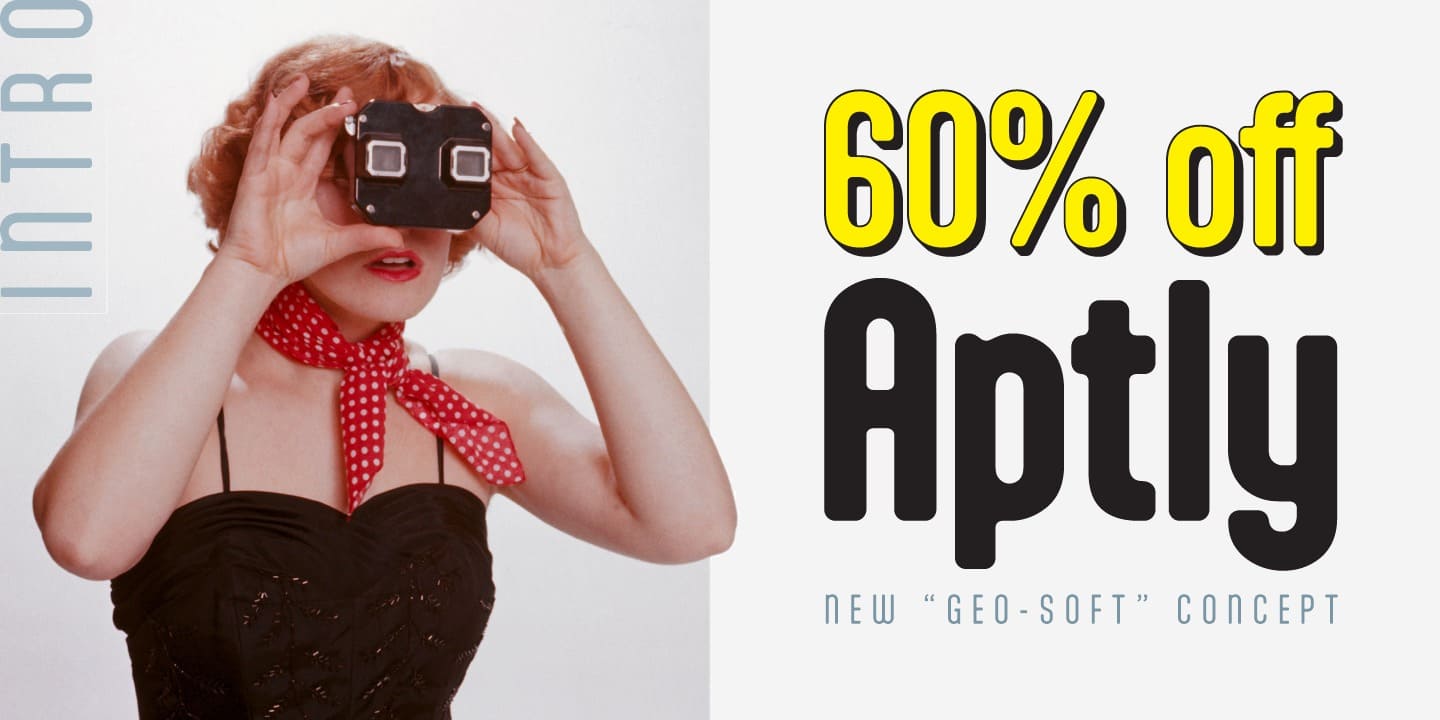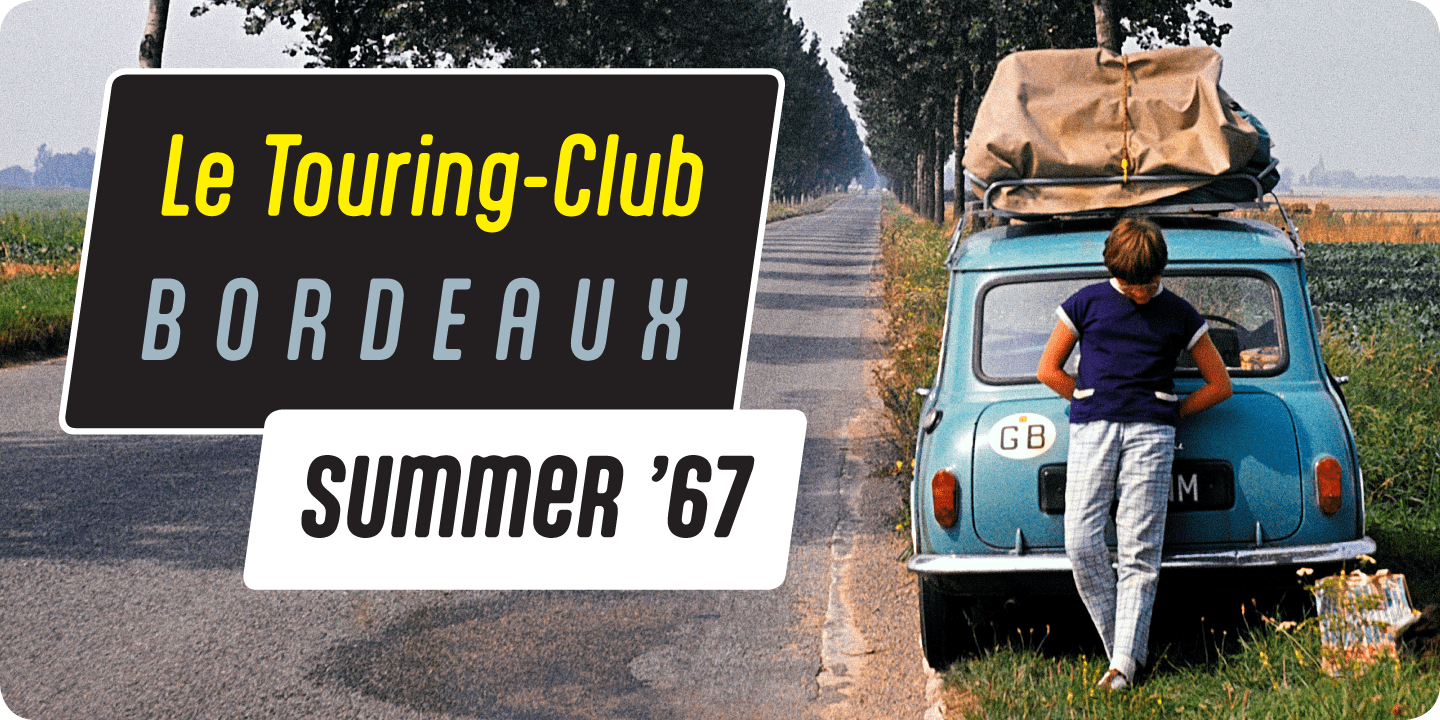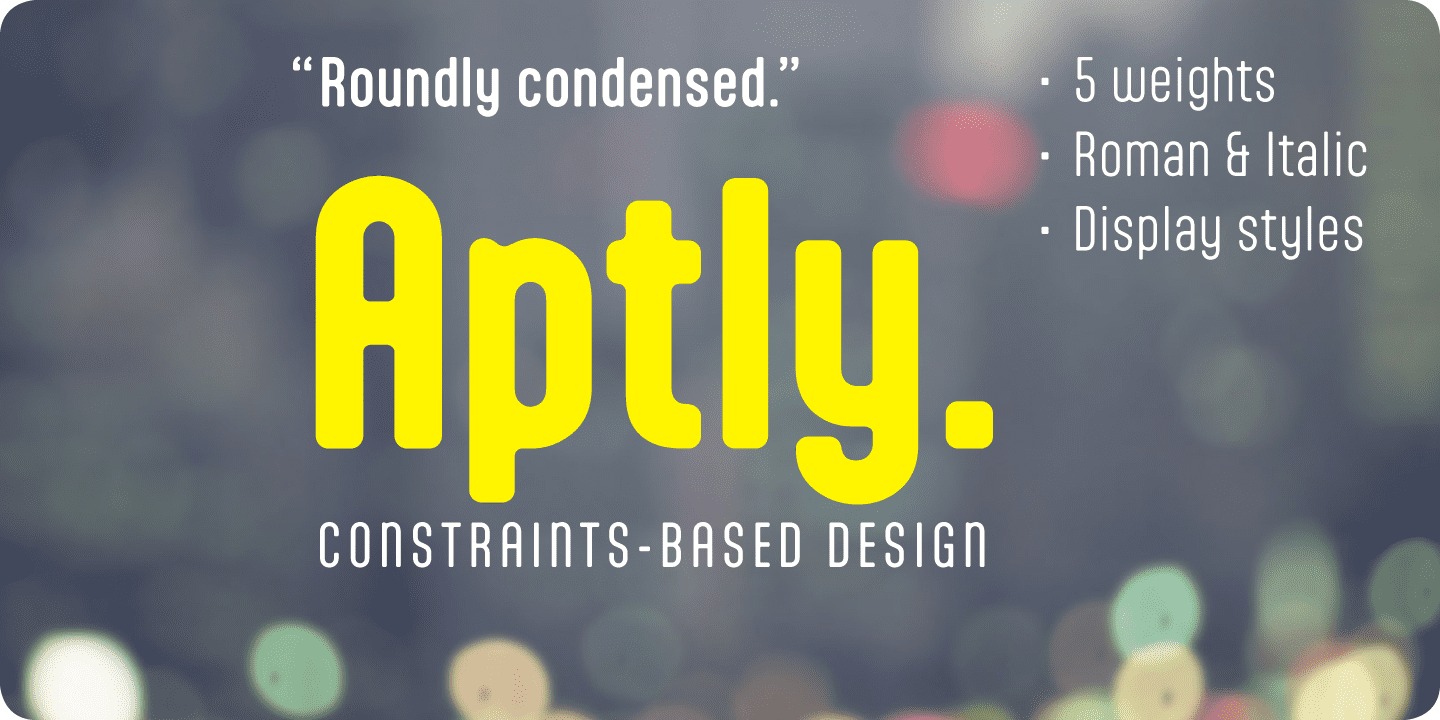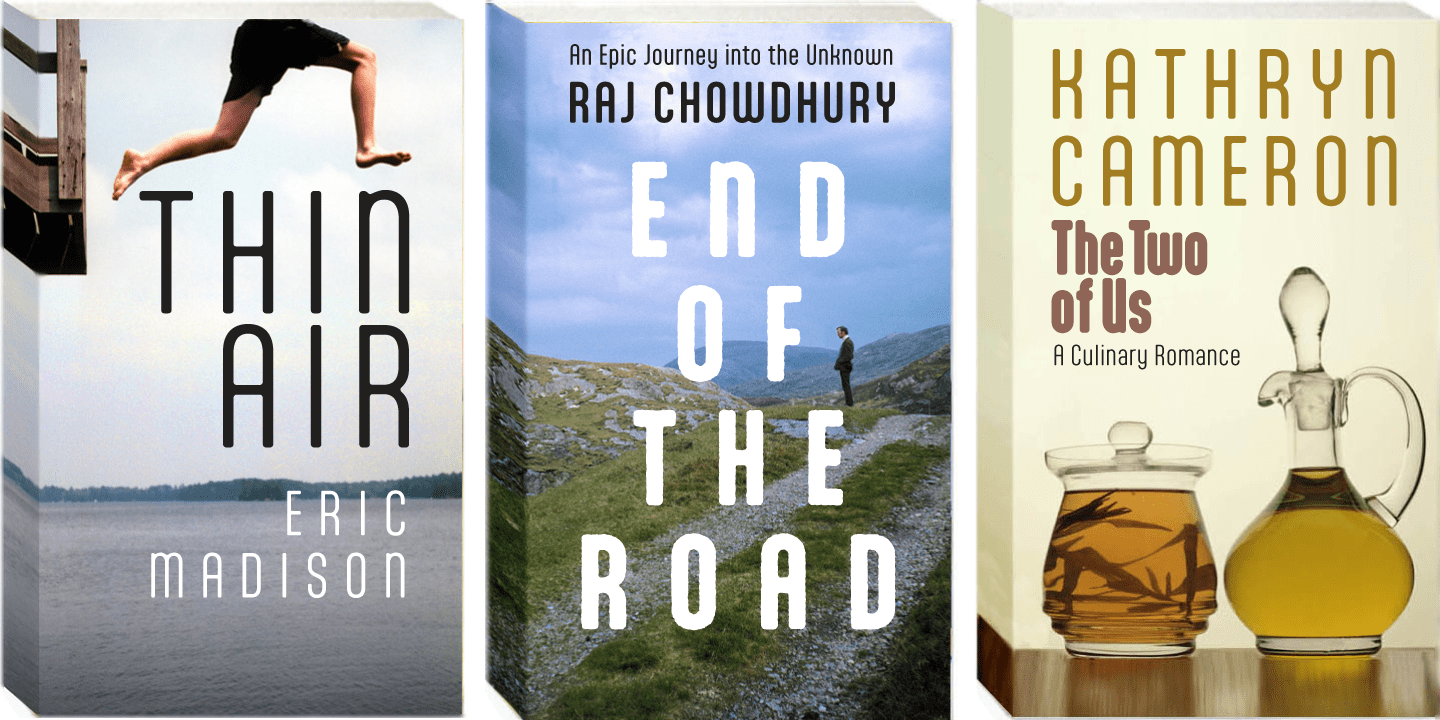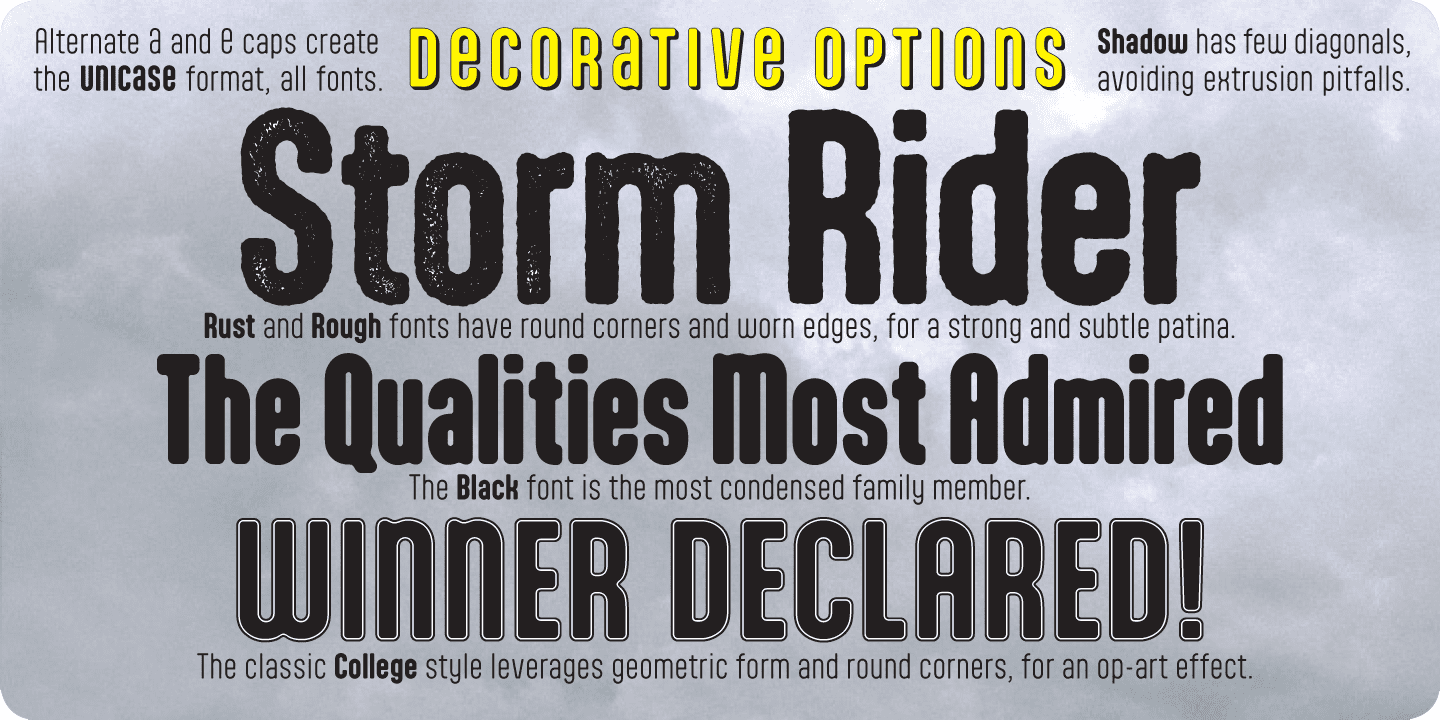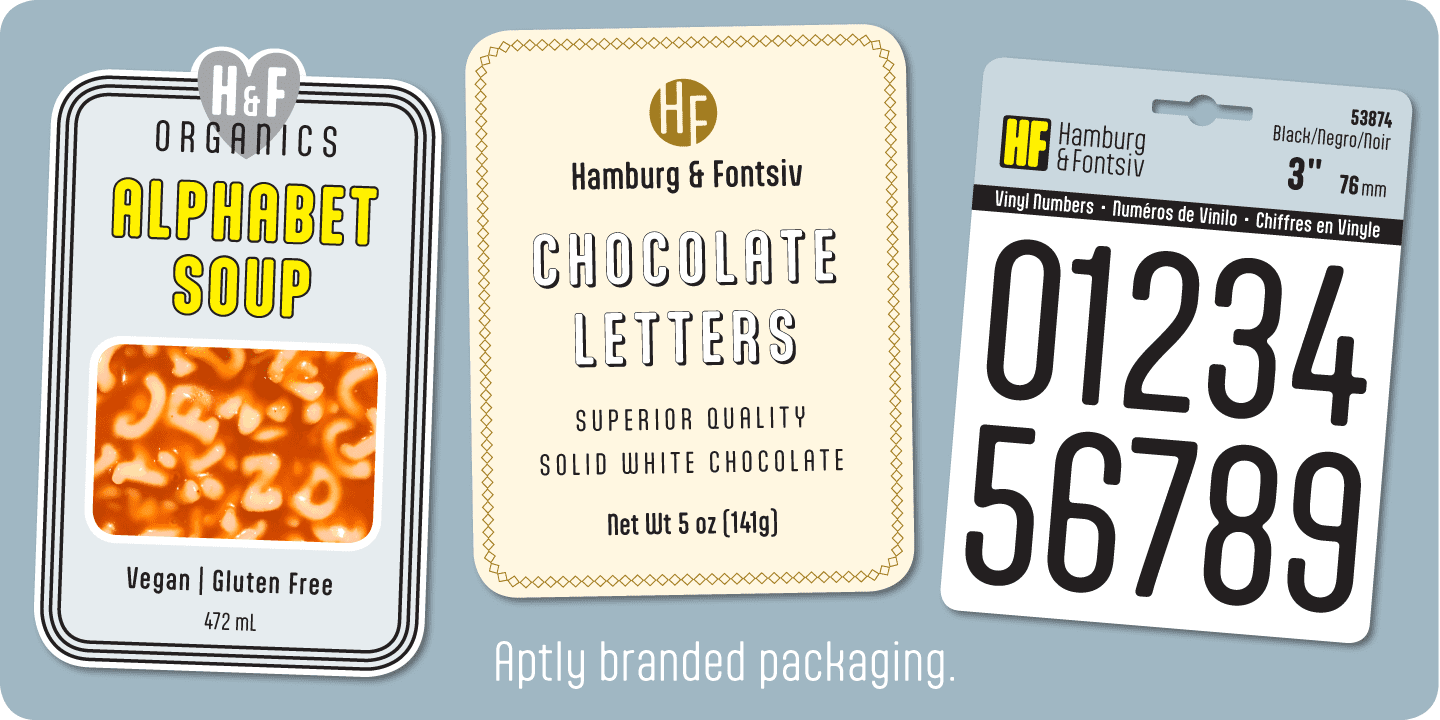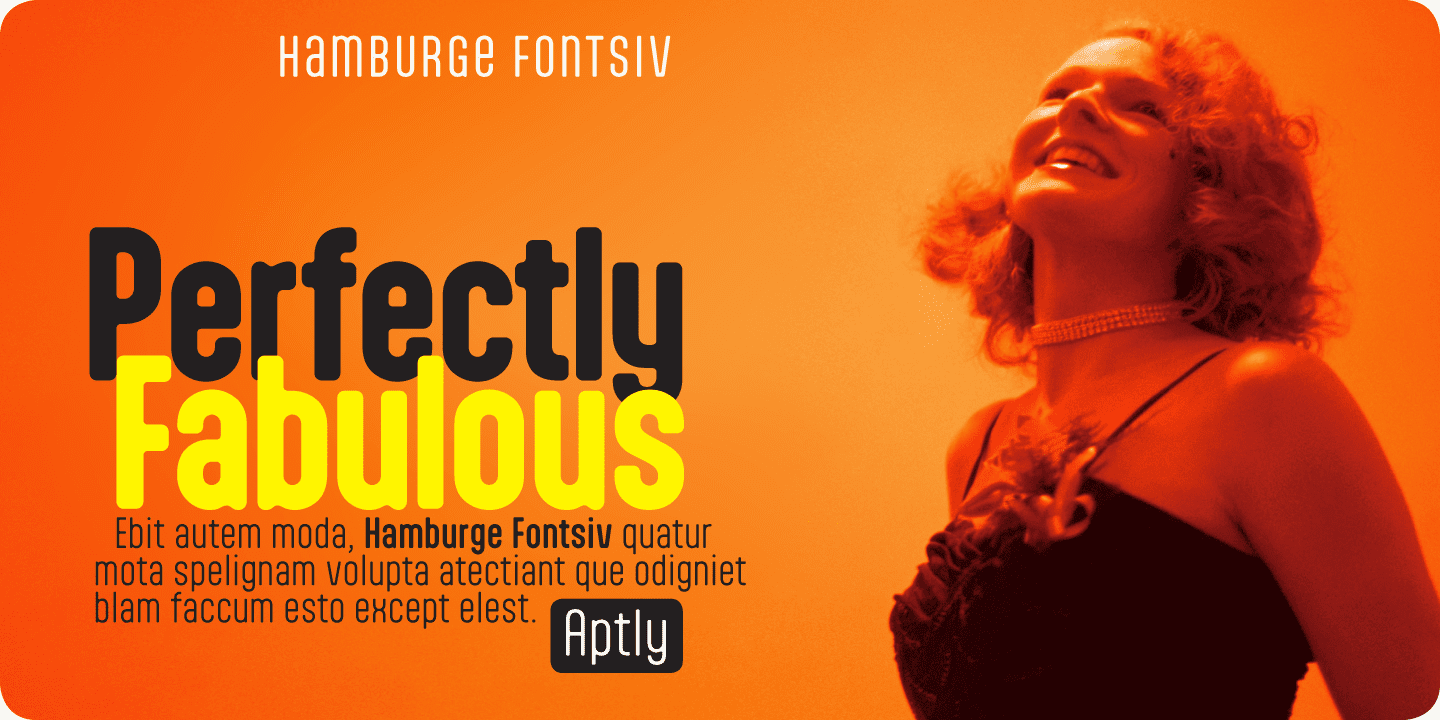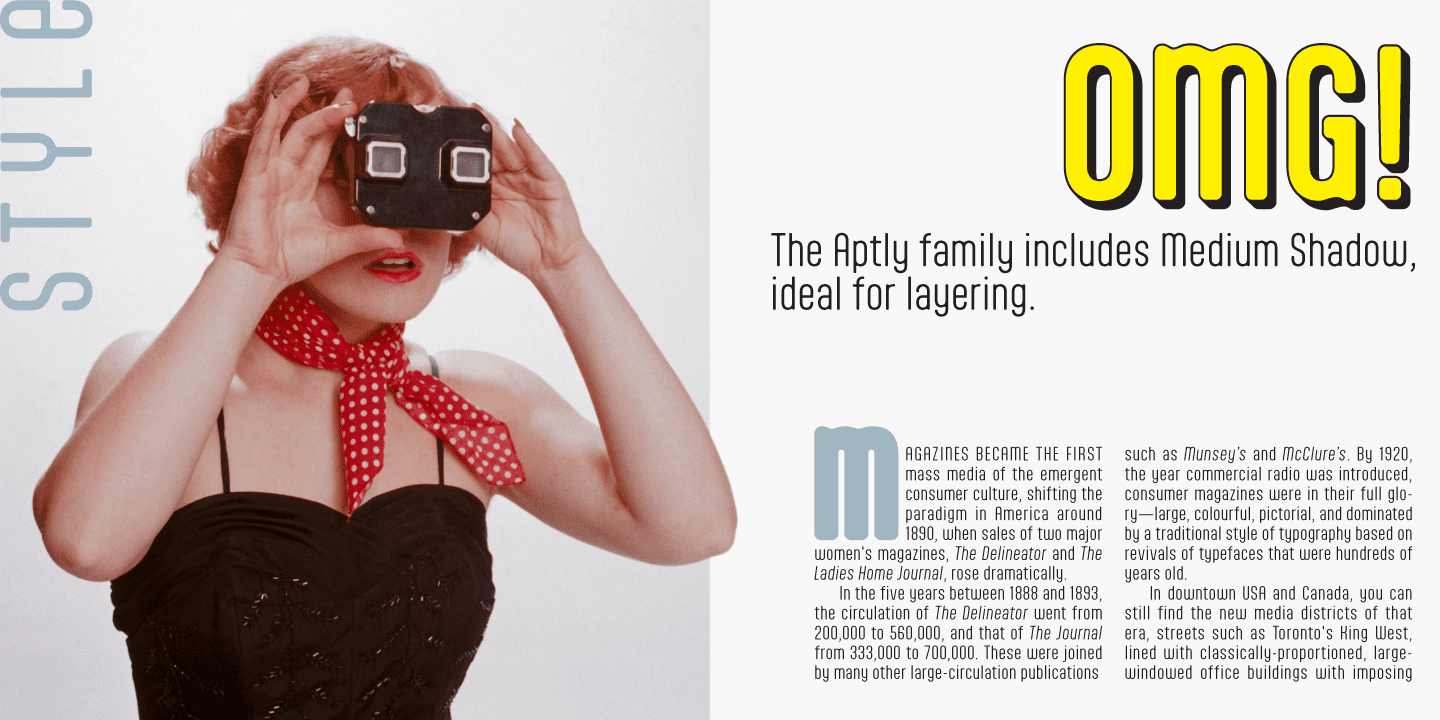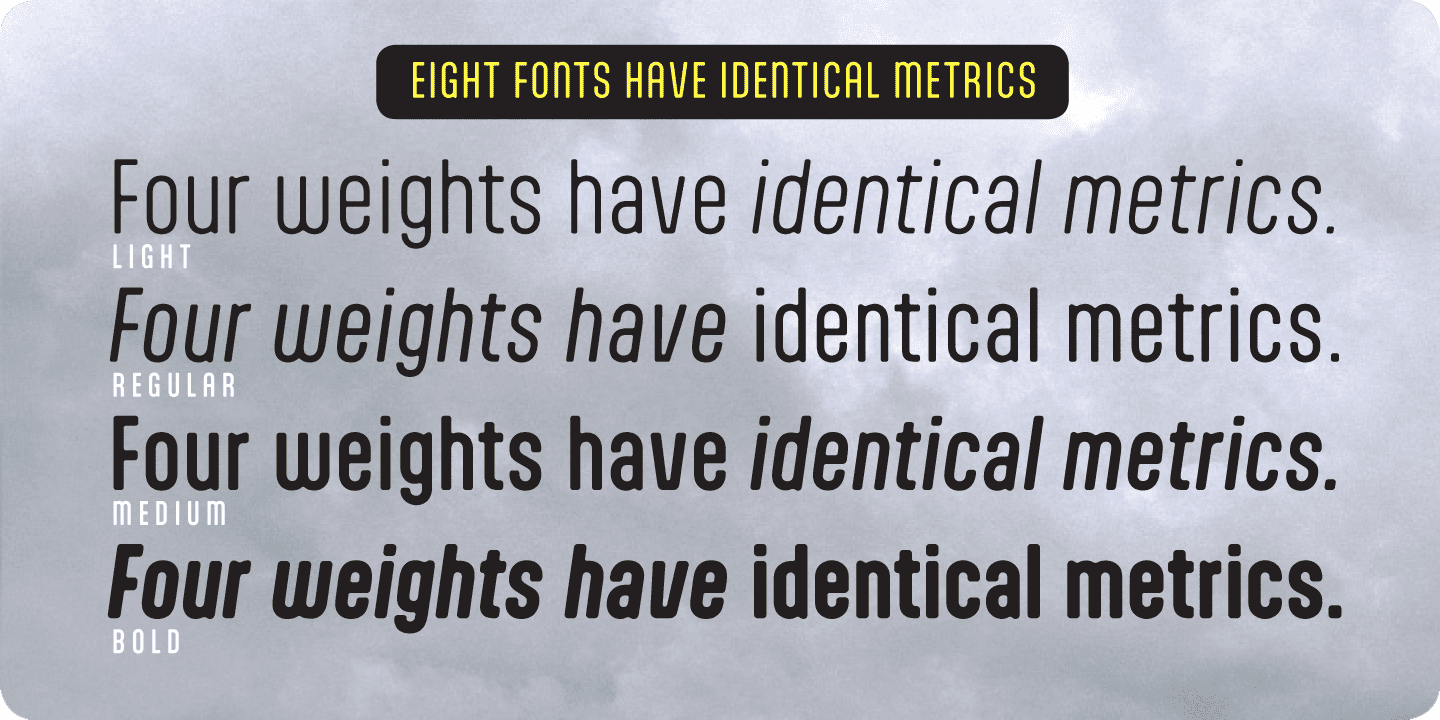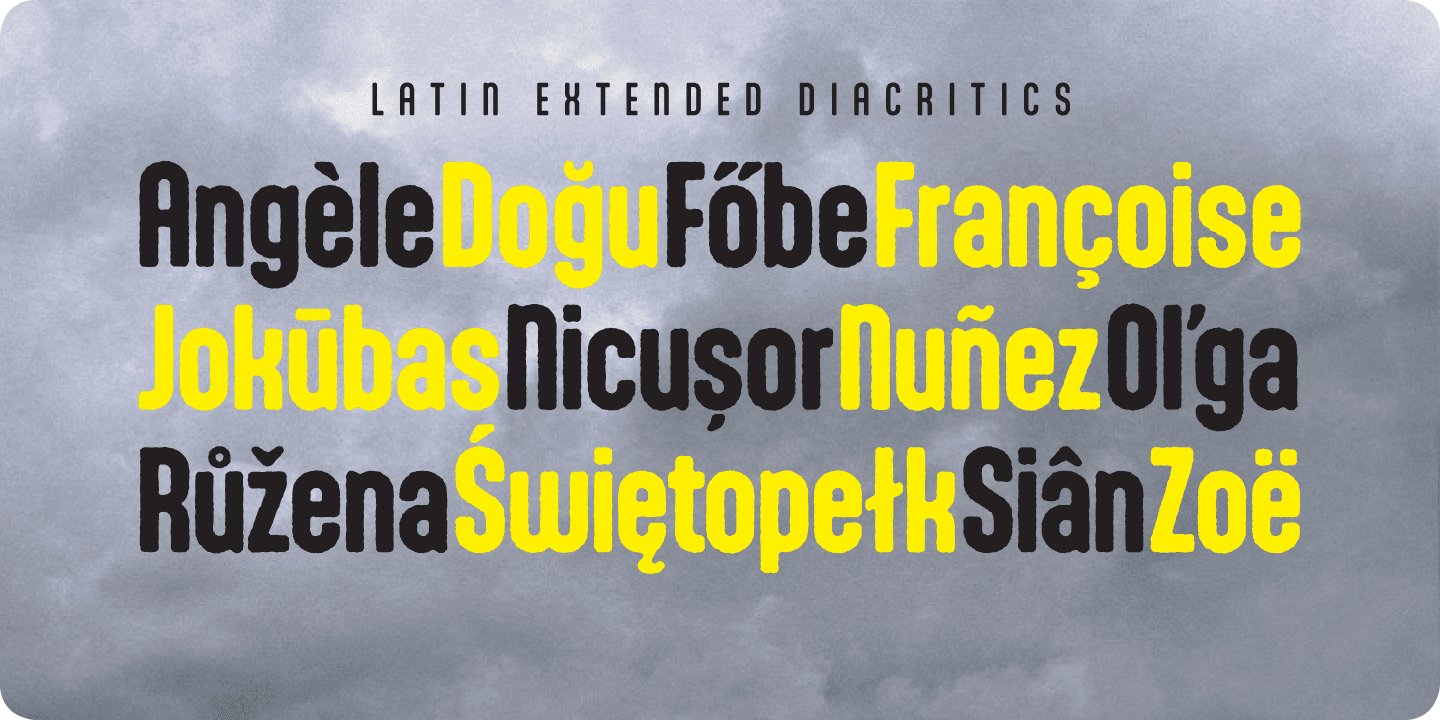
Aptly Family (14 fonts)
All four of the main weights, including italics, have exactly the same metrics. Beyond these basic styles, suitable for both text and headline, there are additional display fonts—Extra Bold and Black for density, and College, Rust, Rough and Medium Shadow for decorative detail.
As options, minuscule-form “a” and “e” are provided at cap height for the classic unicase style, in all 14 fonts.